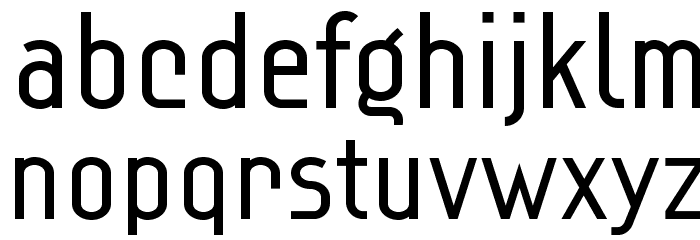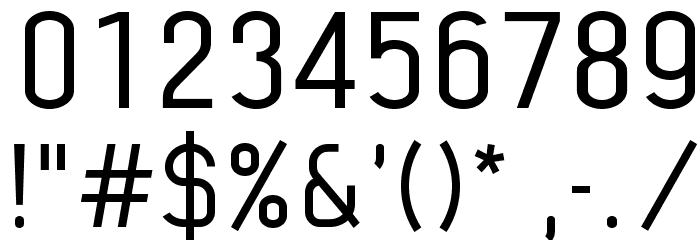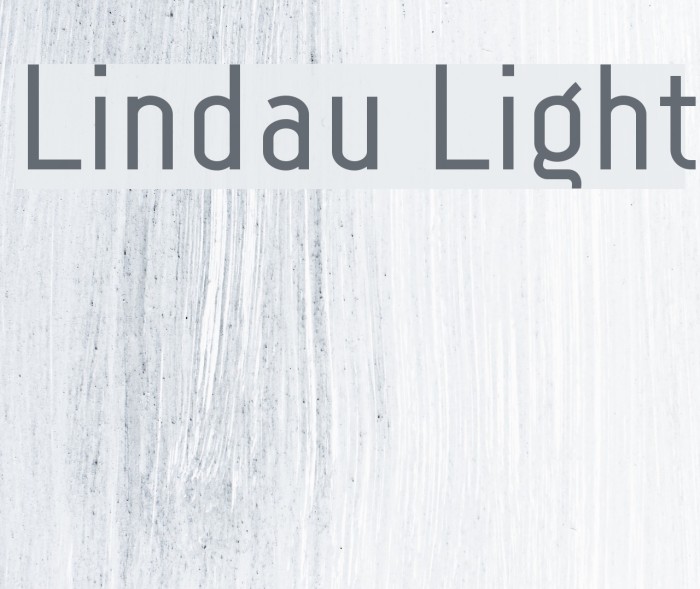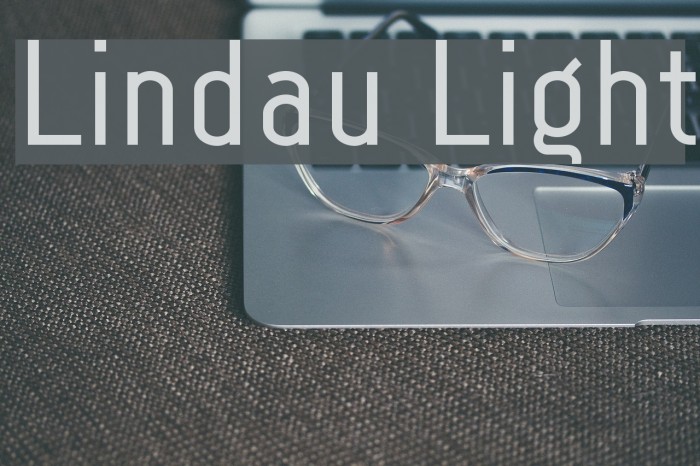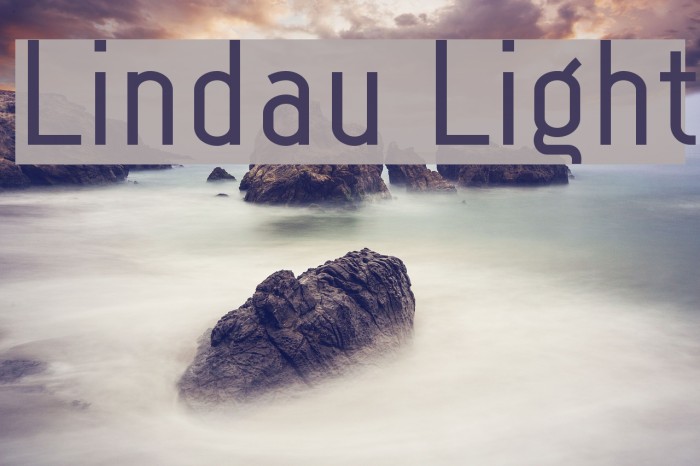
Lindau Light Font
This font exhibits a clean and modern sans-serif style with a geometric structure. The characters are well-balanced, featuring uniform stroke widths that contribute to a harmonious appearance. The uppercase letters are bold and assertive, while the lowercase letters maintain a consistent and approachable look. The numerals are clear and legible, making them suitable for various applications. The special characters are distinct and integrate seamlessly with the overall design. This font's simplicity and clarity make it versatile for both digital and print media.
A modern, geometric sans-serif font with uniform stroke widths and clear legibility.
- Proposed Projects: Ideal for branding, web design, editorial layouts, and signage due to its clarity and modern appeal.